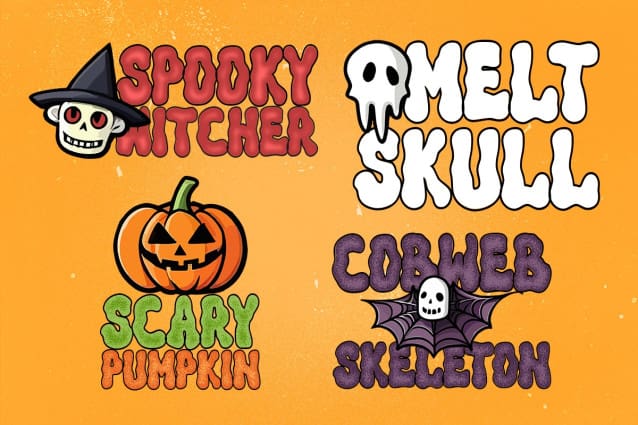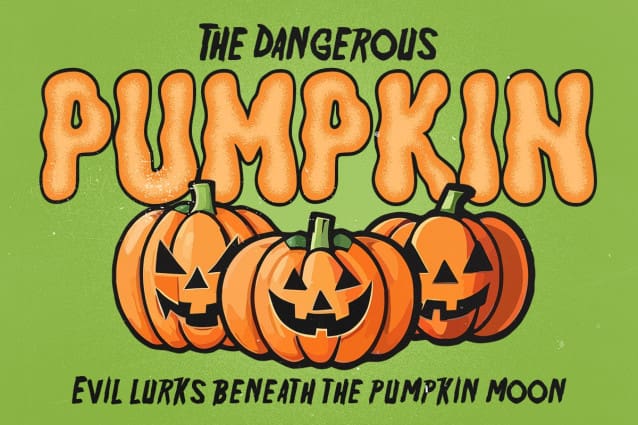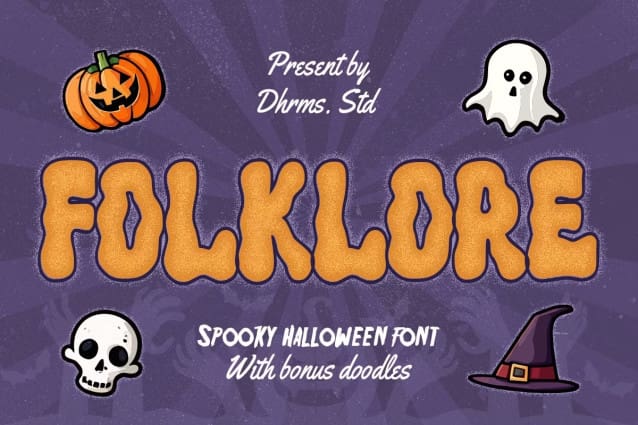
Folklore Spooky Font
Folklore Spooky Font a font that’s all about spooky, ghoulish fun! With its charming all caps style and built-in speckly texture, Folklore brings a touch of whimsy to your creative projects. Plus, we’ve included an Outline version of the font as a little bonus.